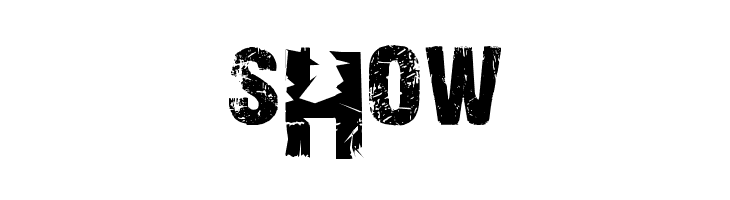
krown oblique Bold Font
- Font: krown oblique Bold
( Fonts by Gyom Seguin - last-soundtrack.daportfolio.com )
A bold, distressed font with a vintage, grunge aesthetic.